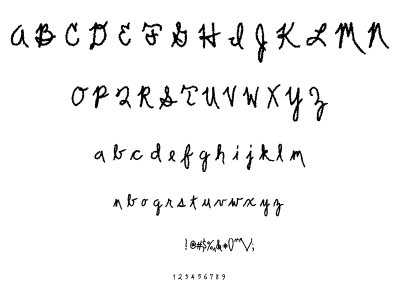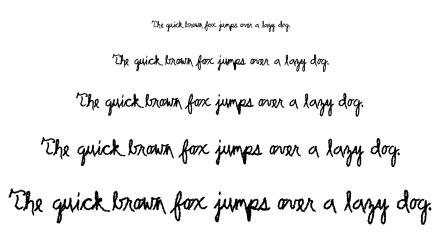
Home » Script » Handwritten » Scrawler Handwritten Scrawler Kevin Richey May 31, 2012 3 Views 0 SaveSavedRemoved 0 Scrawler Font Scrawler.ttf Freeware - 1 font file Download 801 downloads Character Mapspecimen sheetwaterfallScrawler.ttf The chicken scratch of a mad man